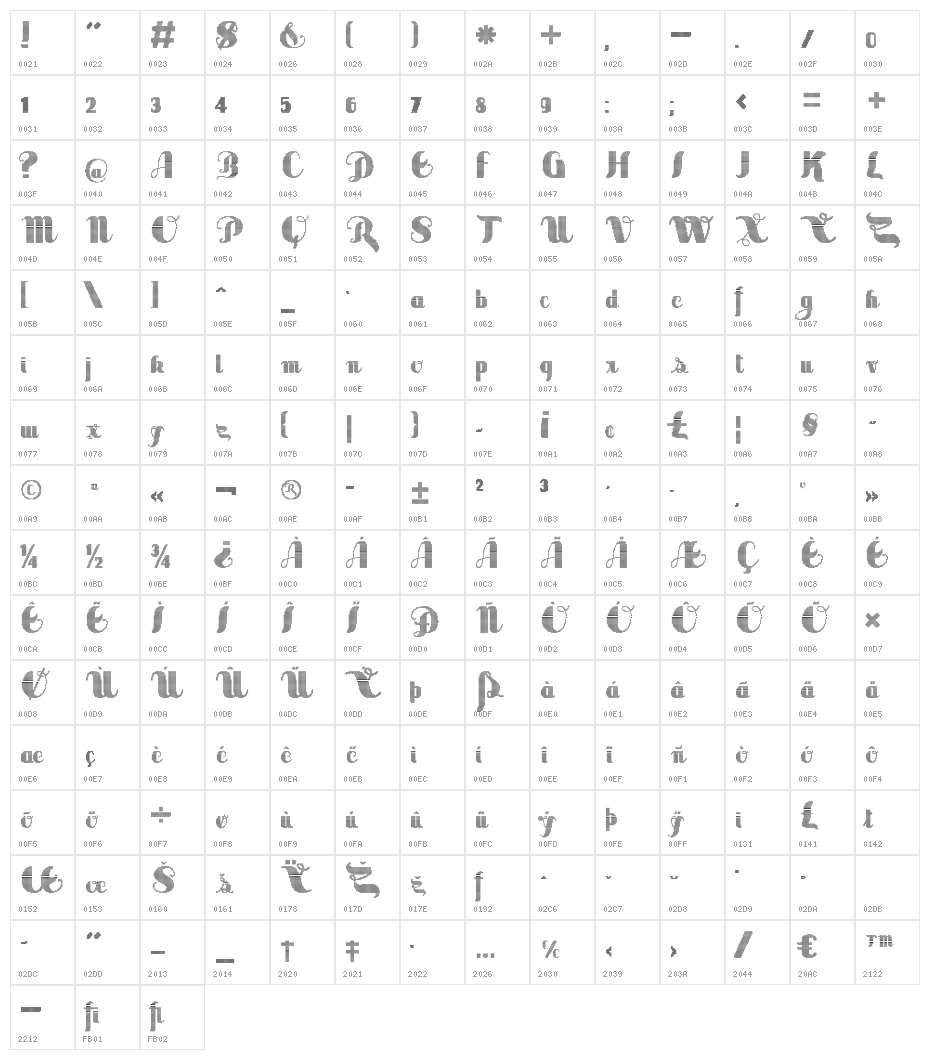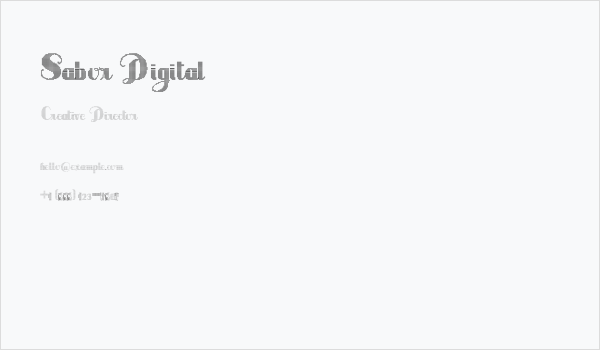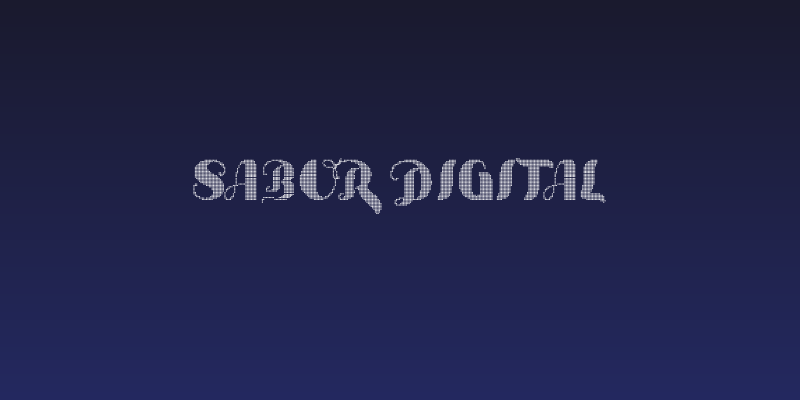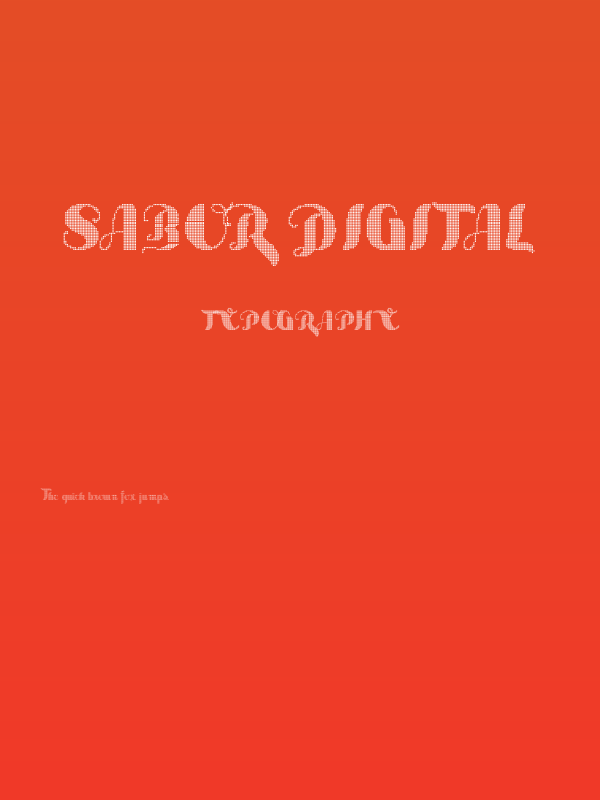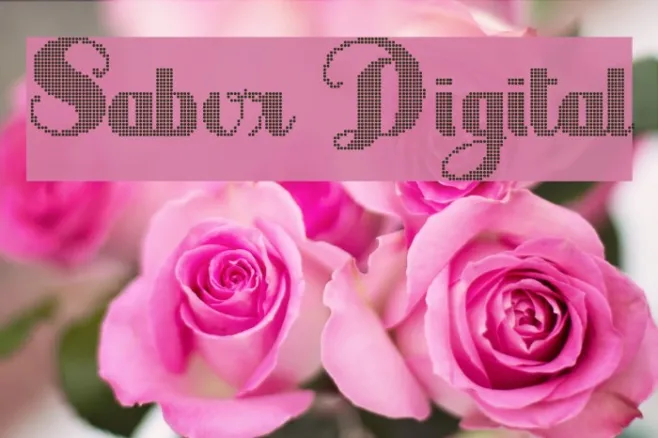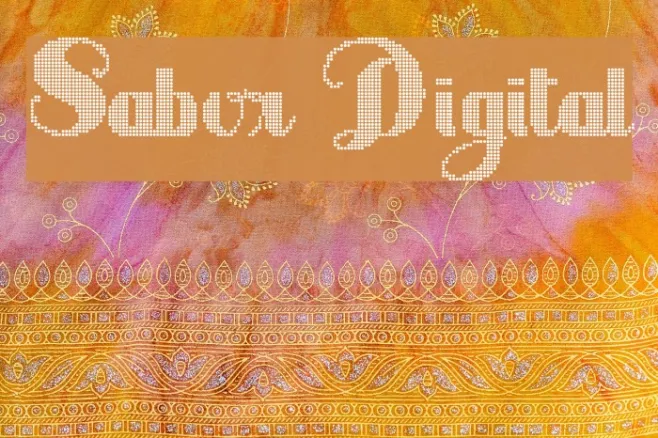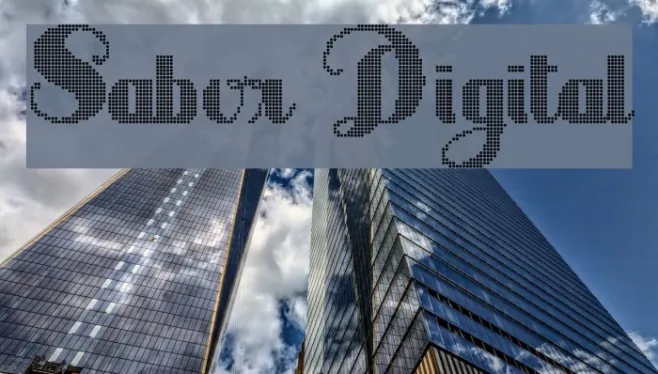
Sabor Digital Font
Sabor Digital Description
This font features a unique blend of digital and vintage aesthetics, characterized by a pixelated, dot-matrix style that gives it a retro digital appearance. The uppercase letters are bold and structured, with a distinct geometric influence, while the lowercase letters maintain a cohesive flow with slightly more curvature. Numbers and special characters follow the same pixelated pattern, ensuring consistency across all elements. The font's design is reminiscent of early digital displays, making it ideal for projects that aim to evoke nostalgia or a tech-inspired theme.
| Use Case | Logos, Headlines, Digital Art |
| Proposed Projects | Ideal for digital art, retro-themed designs, tech-inspired branding, and nostalgic digital displays. |